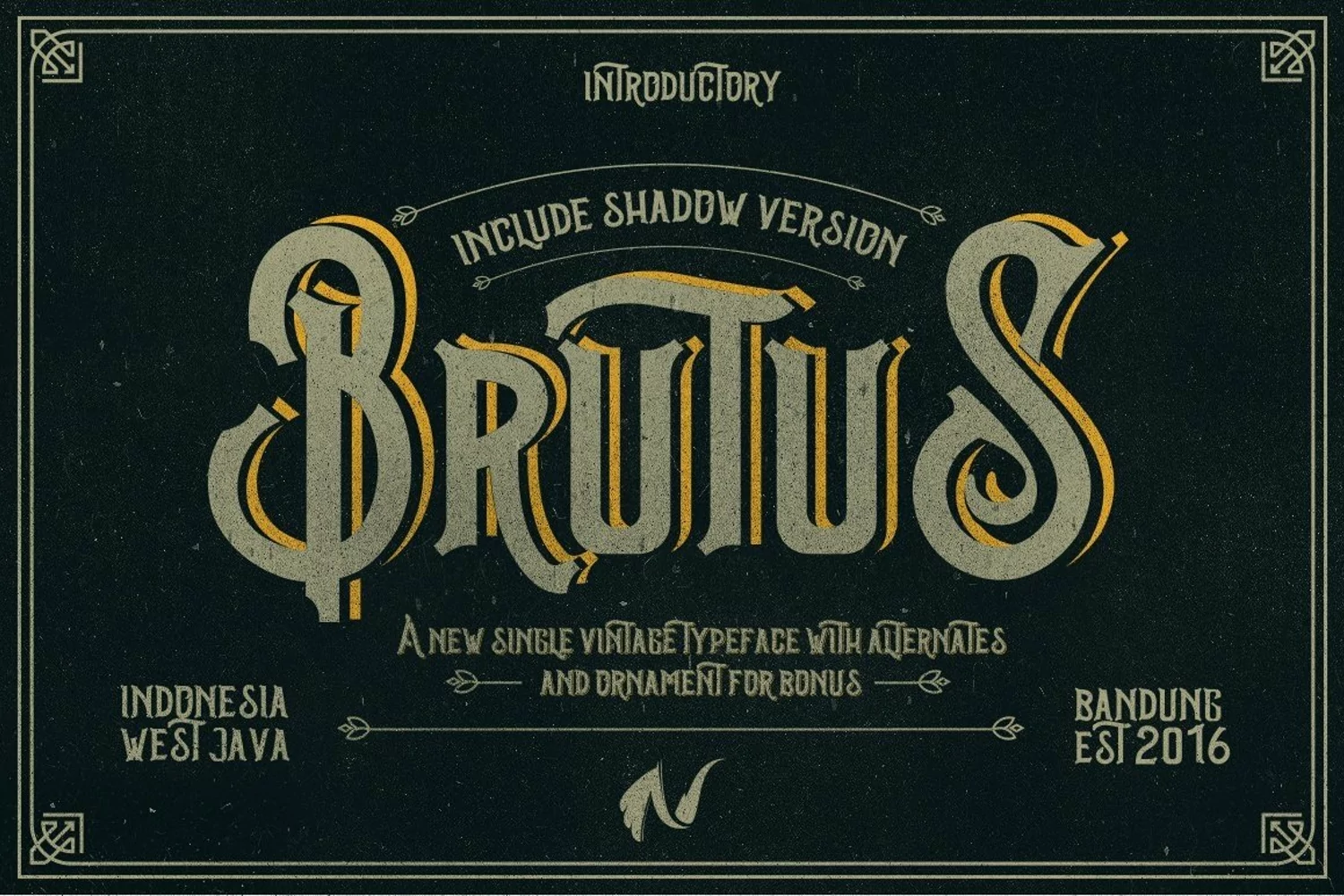
INTRODUCTORYBRUTUS TYPEFACE a new single typeface touching a vintage style with a highly detailed for ornament so looks a eye catching, many alternate on Uppercase can be looks a great for mix and match this font with frame ornament for bonus. As a display typeface Brutus is suitable for headlines, logotypes, signs, posters, greeting card, letterhead, t-shirt, and many more.What this include: